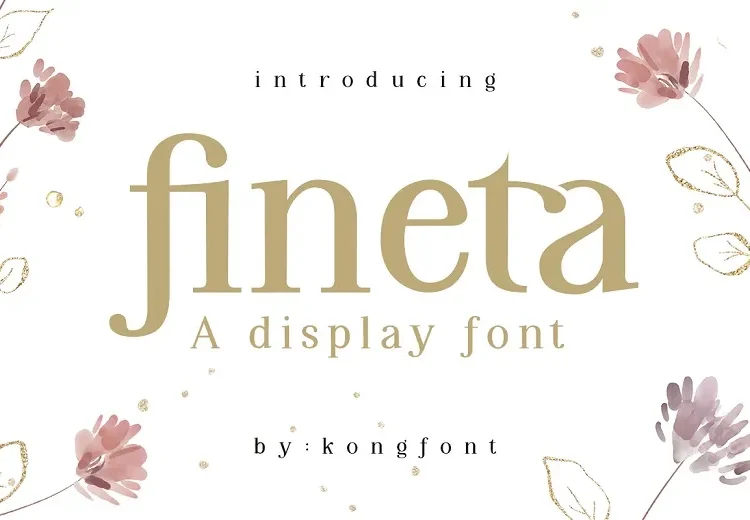
Fineta Font
Fineta is a sophisticated modern display serif font that seamlessly blends traditional elegance with contemporary design elements. Unlike other serif fonts, Fineta stands out with its distinctive plain structure combined with a narrow serif at the base, creating a unique balance between classic and modern aesthetics. The subtle flows extending beyond the perimeter of the letters contribute to its overall graceful and refined appearance.
Key Features of Fineta:
• Traditional Meets Contemporary: Fineta masterfully combines classic serif elements with a modern twist, making it a versatile choice for various design projects. Its elegant yet straightforward design allows it to adapt to different themes and styles effortlessly.
• Elegant Structure: The font’s narrow serifs and clean lines lend it a sophisticated look, perfect for designs that require a touch of class and refinement. The unique flow of the letters adds a graceful touch, enhancing its overall visual appeal.
• Versatile Application: Fineta is ideal for both digital and print projects. Whether you’re designing wedding invitations, posters, or souvenirs, this font will deliver clarity and elegance in any size or format.
Ideal Applications:
• Wedding Invitations: Add a touch of elegance and tradition to your special day with Fineta.
• Posters: Create visually striking posters that stand out with Fineta’s modern yet classic design.
• Souvenirs: Perfect for commemorative items, giving them a sophisticated and memorable look.